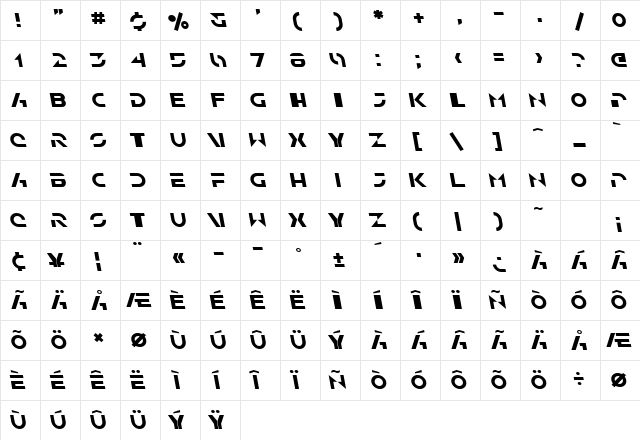
SF Solar Sailer Italic
Design Context for SF Solar Sailer Typeface
SF Solar Sailer is a composed and adaptable typeface that performs quietly and consistently across a wide range of design contexts. The dynamic lean of this cut emphasises speed and emphasis in any layout.